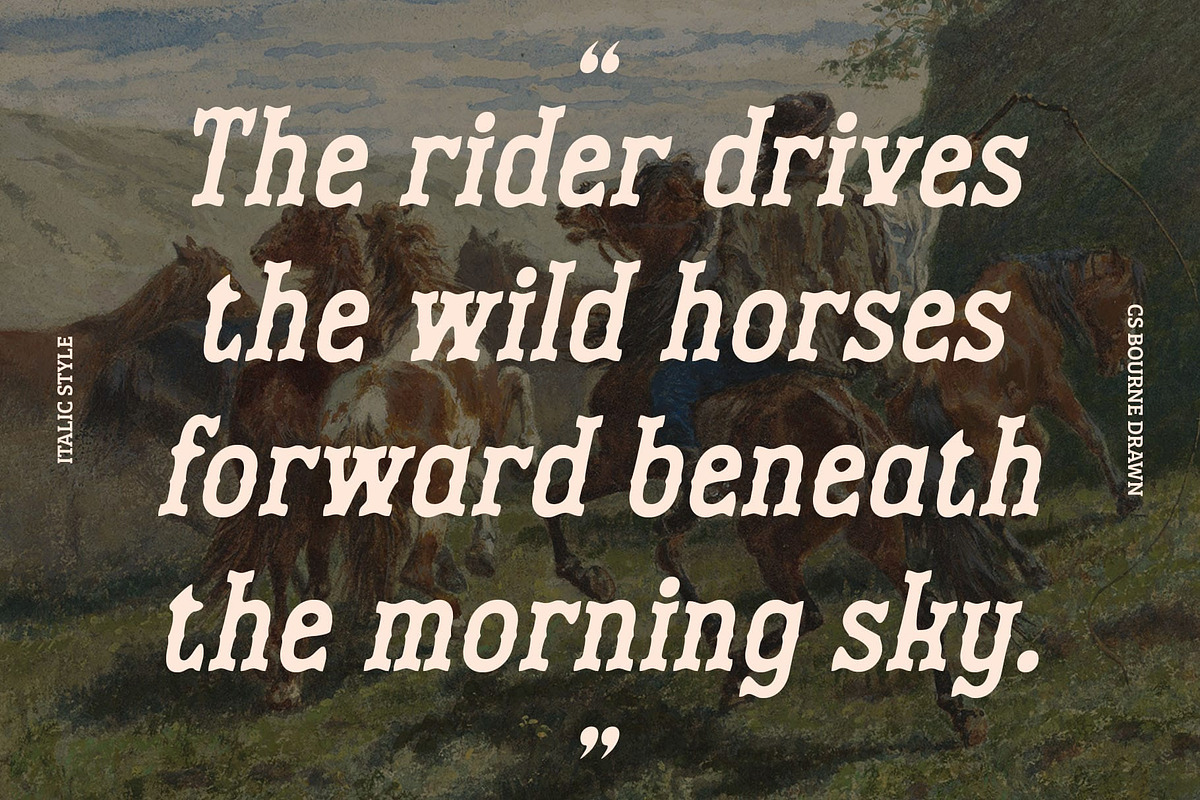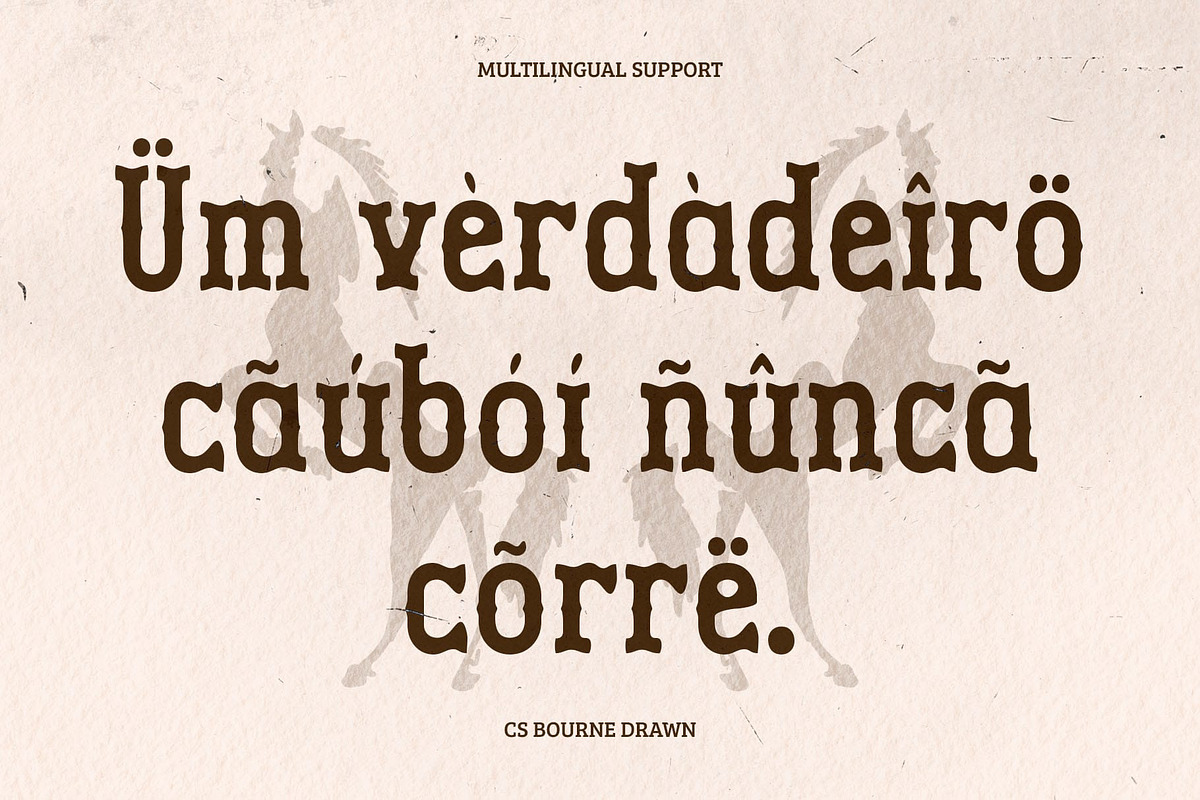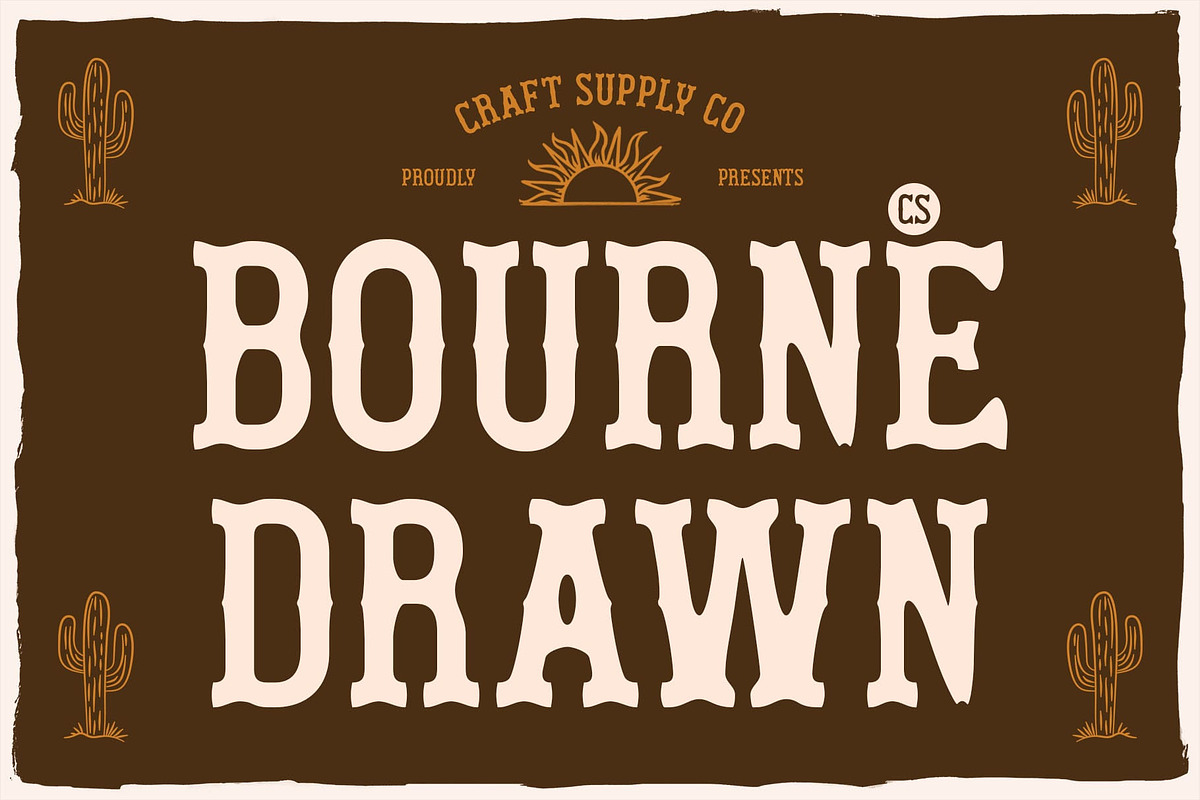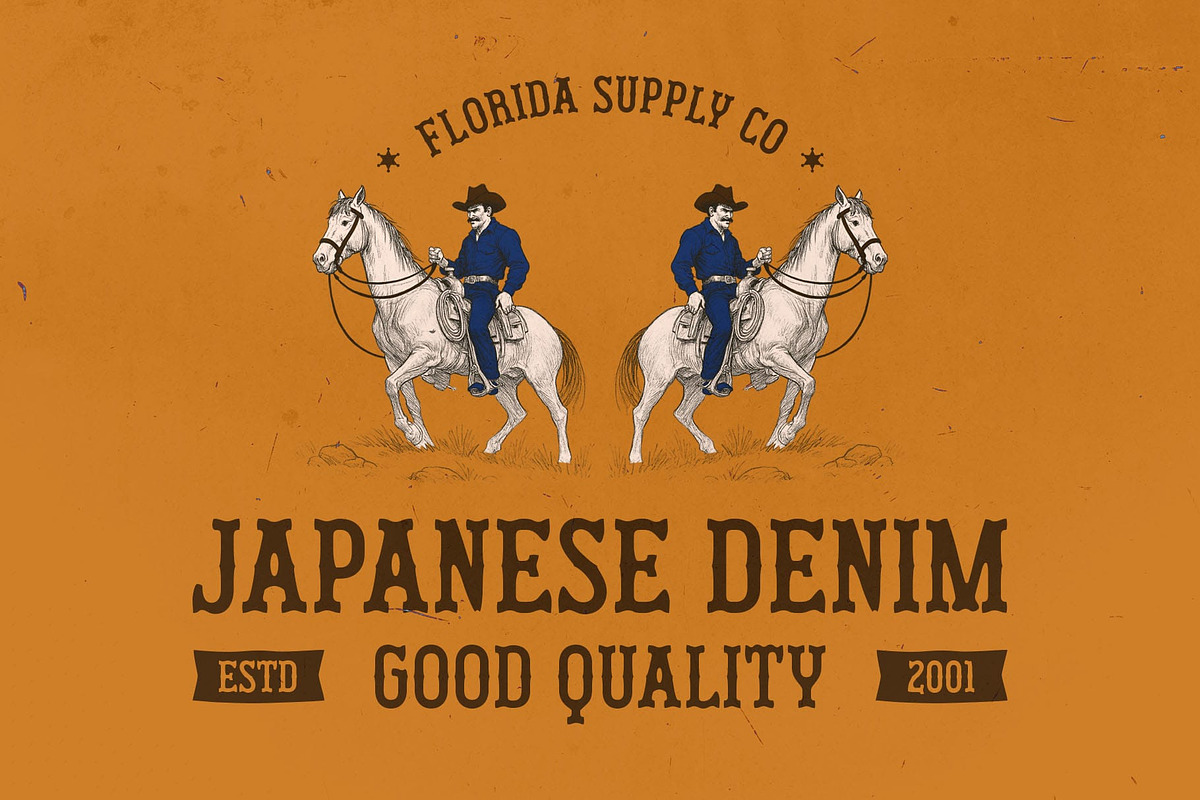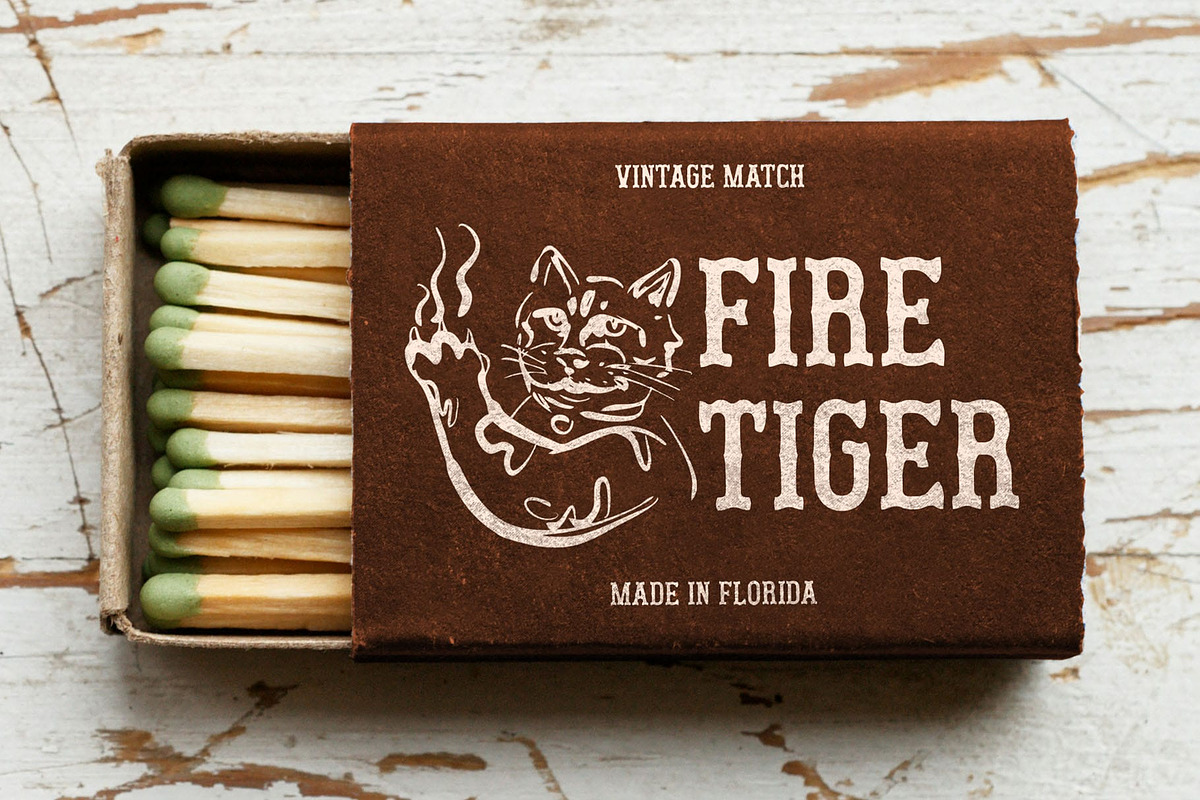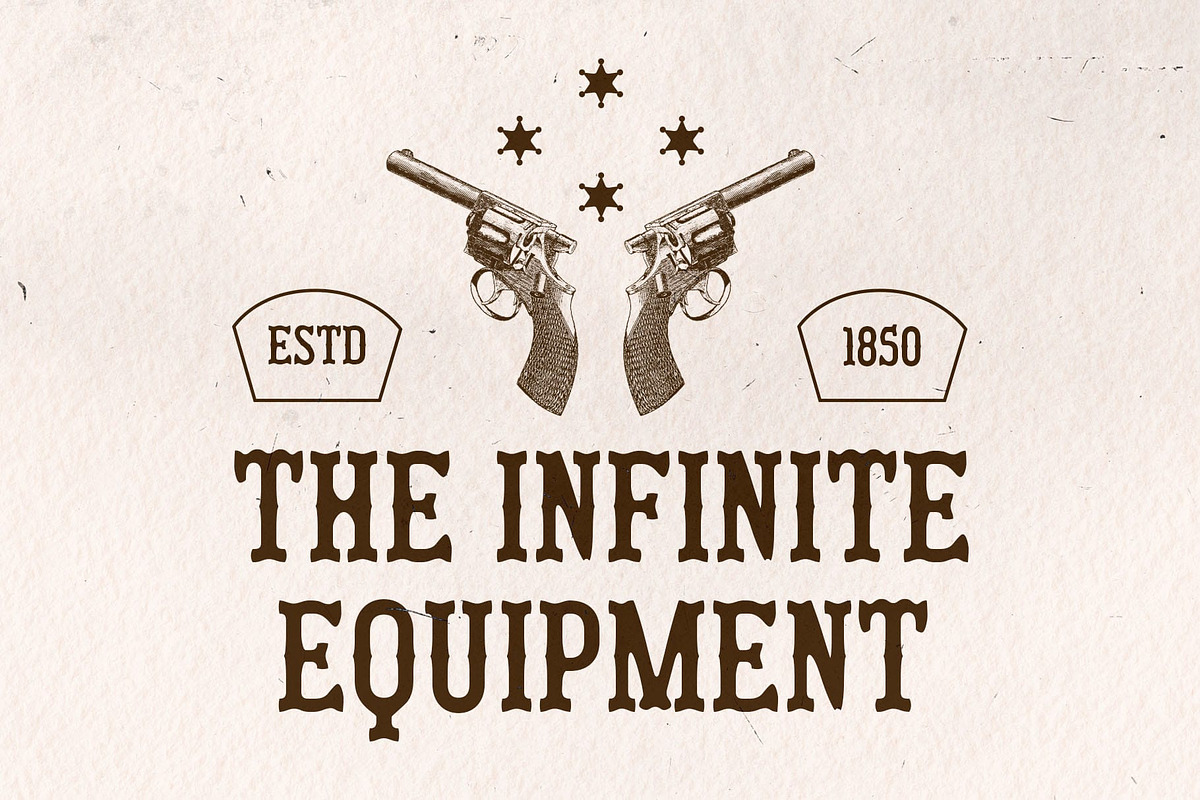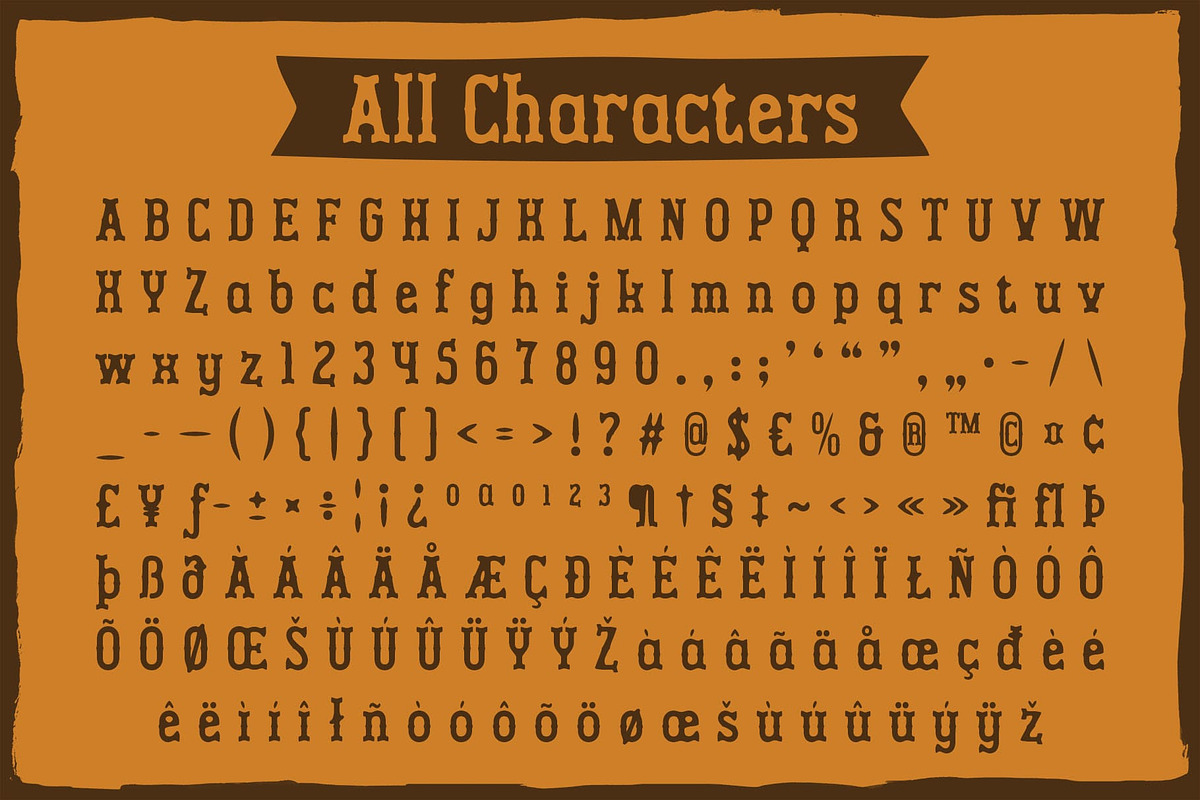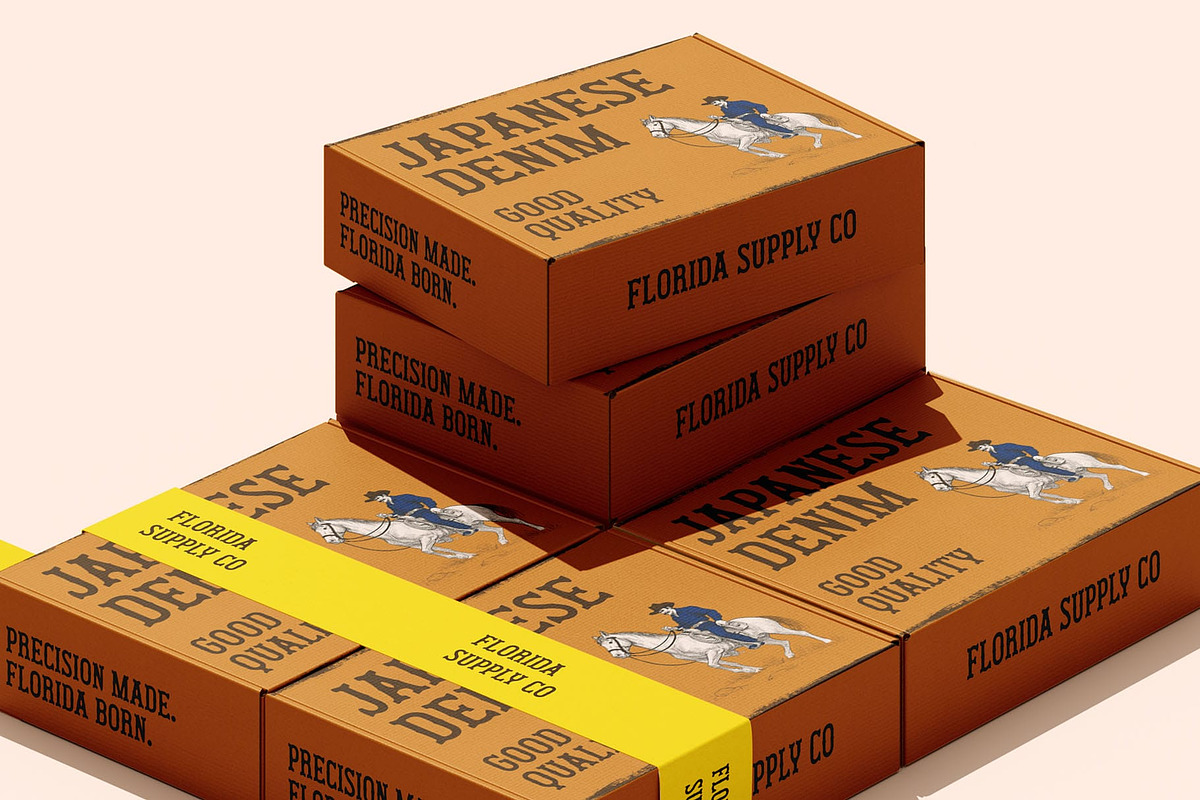
CS Bourne Drawn
CS Bourne Drawn – Classic Meets Handmade Expression
Classic Tuscan Display Serif with Drawn Texture CS Bourne Drawn is a display serif font rooted in the distinctive Tuscan style—recognized by its sharply curved, decorative terminals that channel the bold elegance of 19th-century design. The font’s unique historical flair brings a sense of vintage nostalgia and ornamental charm to any visual piece.
Hand-Drawn Texture for Artistic Personality Enhanced with a drawn effect, this ornamental font features an organic, roughened finish that mimics hand-drawn strokes. This handcrafted quality adds depth, warmth, and expressive texture, offering a balance between structured elegance and artisanal character.
Bold Vintage Appeal for Thematic Designs With its fusion of classic structure and raw illustrative flair, this font is ideal for nostalgic and expressive design work. Whether used for Western-style posters, retro signage, or themed branding, this rugged Tuscan font creates a visually captivating impression that feels both time-honored and creatively fresh.
Perfect for Character-Rich Visuals Whether used in creative branding, editorial layouts, album artwork, or retro-inspired packaging, this classic retro font brings a unique aesthetic that’s rich in detail and personality. Its vintage Tuscan roots, combined with the illustrative texture of hand-drawn lines, offer a timeless yet bold impression—perfect for designs that aim to feel classic, distinctive, and artistically handcrafted.